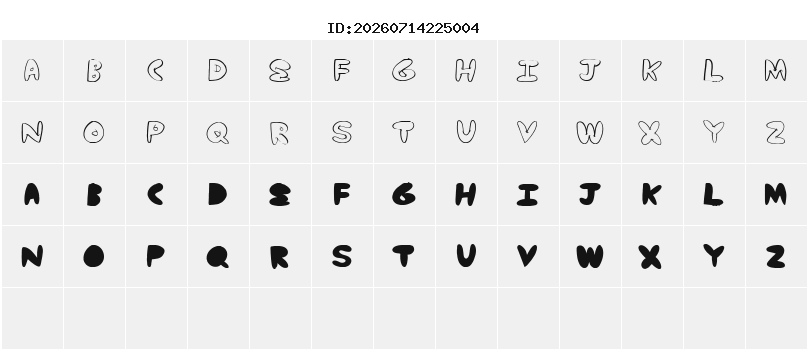
• Font Name: Yummy Nubs
• Designer: max infeld
• Manufacturer: xerographer foundry
• Description: Yummy Nubs is an interesting name
Yummy Nubs.ttf is a modern, elegant sans-serif font designed for ultimate readability and visual harmony. Perfect for branding, headlines, web design, and print materials.